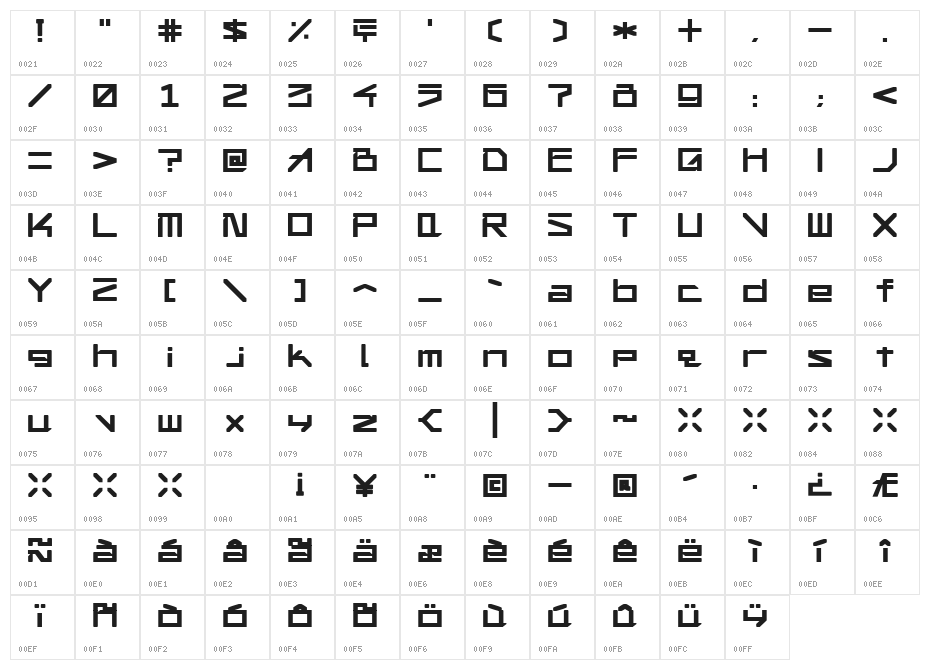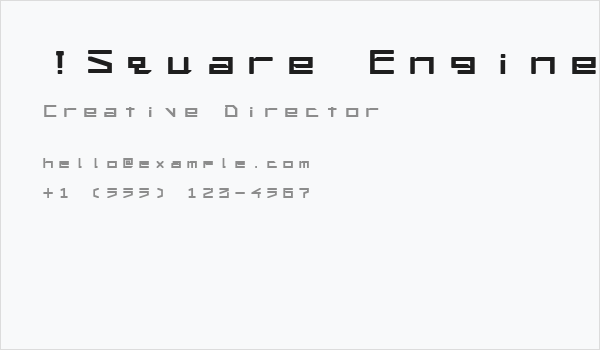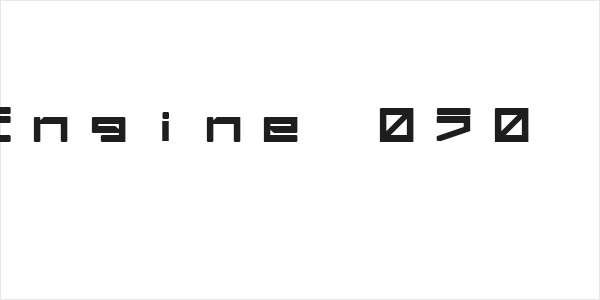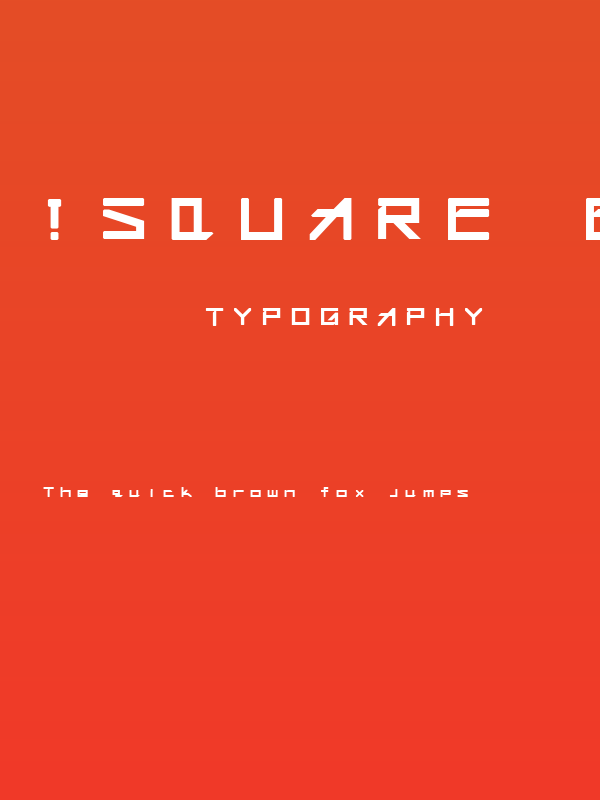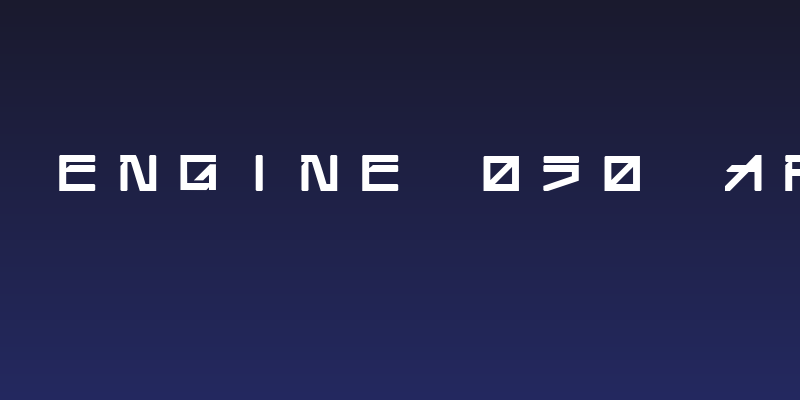
!Square Engine 050 Apex Bold Font
!Square Engine 050 Apex Bold Description
This font features a bold, geometric design with a futuristic and angular aesthetic. Each character is constructed with sharp edges and straight lines, giving it a mechanical and digital feel. The uppercase and lowercase letters maintain a consistent style, with the lowercase slightly smaller but equally bold. Numbers and special characters follow the same design principles, ensuring uniformity across all elements. The font's distinct, blocky appearance makes it ideal for projects that require a modern and tech-savvy look.
| Proposed Projects | Ideal for technology branding, video game interfaces, sci-fi posters, and digital art projects. |